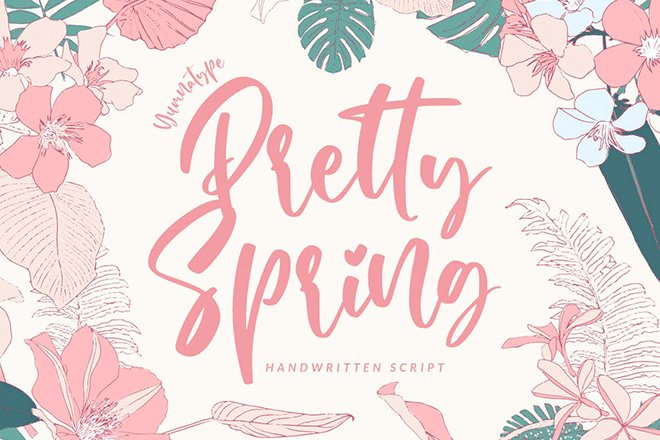
As the spring season unfolds with its lush green hues and vibrant blossoms, it’s time to rejuvenate your designs with the same vibes as well. Our refreshing collection of spring fonts provides just the necessary tools to infuse that touch of beauty into your artworks. Exuding the ess…